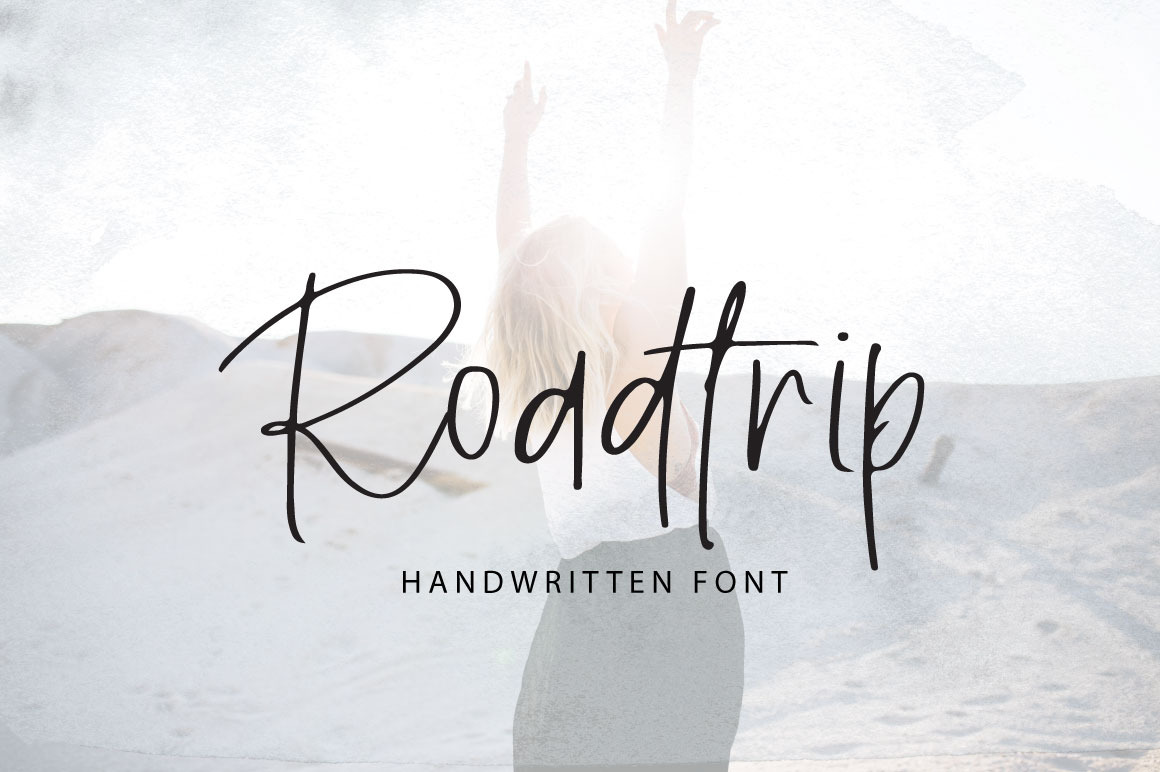
Introducing Roadtrip - A Classic Stylist font perfect for high impact headlines
Every single letter has been creative carefully and Perfectly Playful new font pair. This font is a perfect script designed for making your set of invitations, Brand, blog posts, and more completely beautiful
"Roadtrip" Regular and Alt (uppercase & lowercase letters, numbers, punctuation and stylistic ligatures).